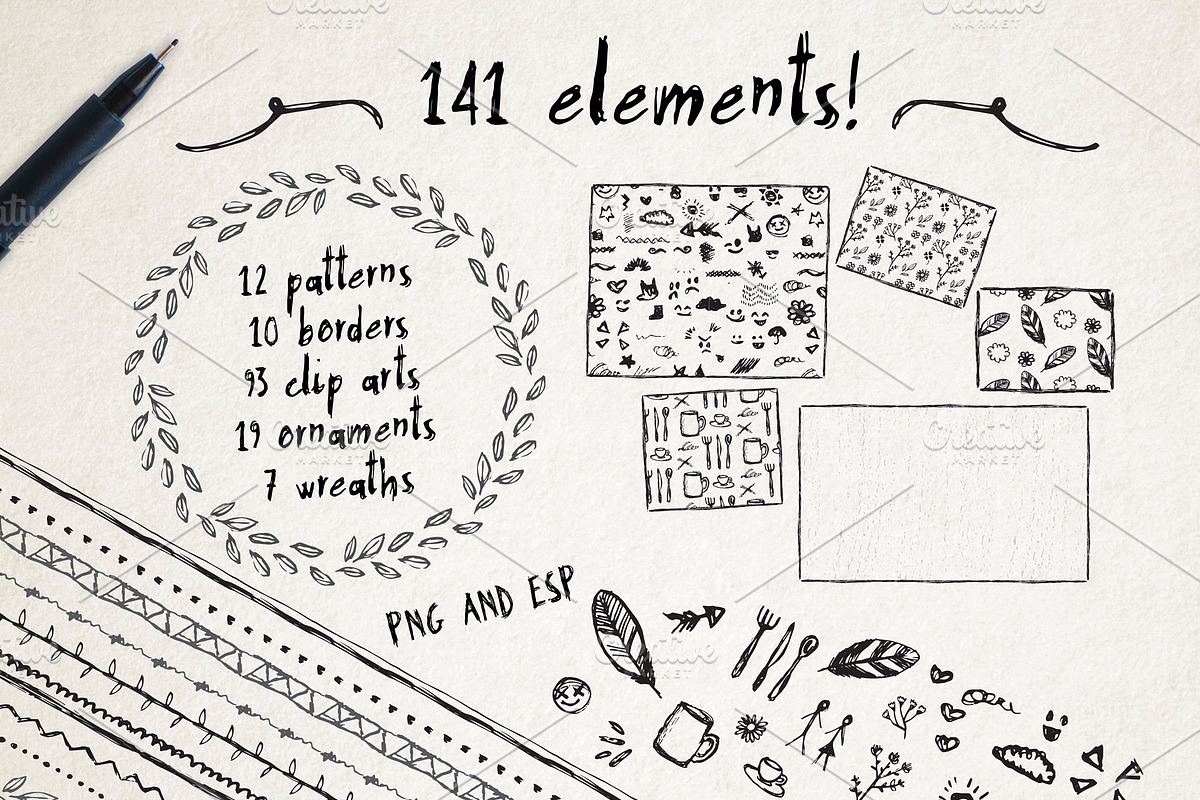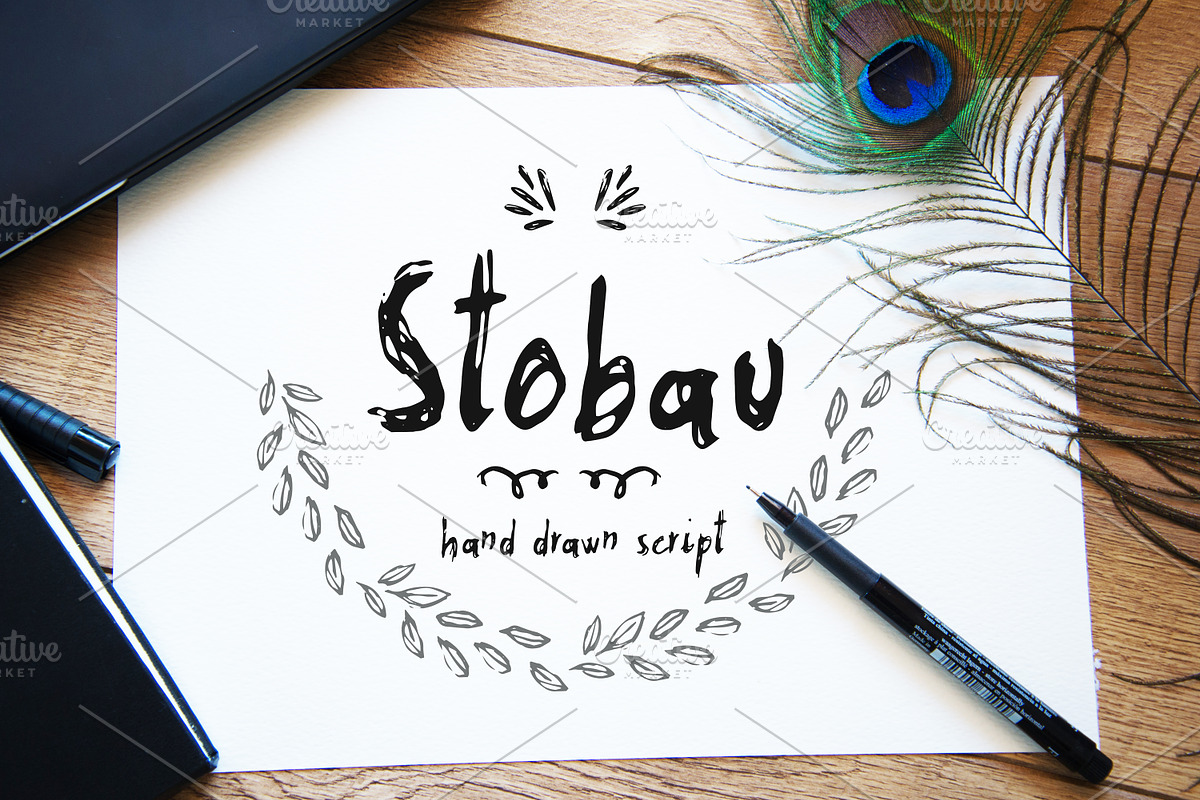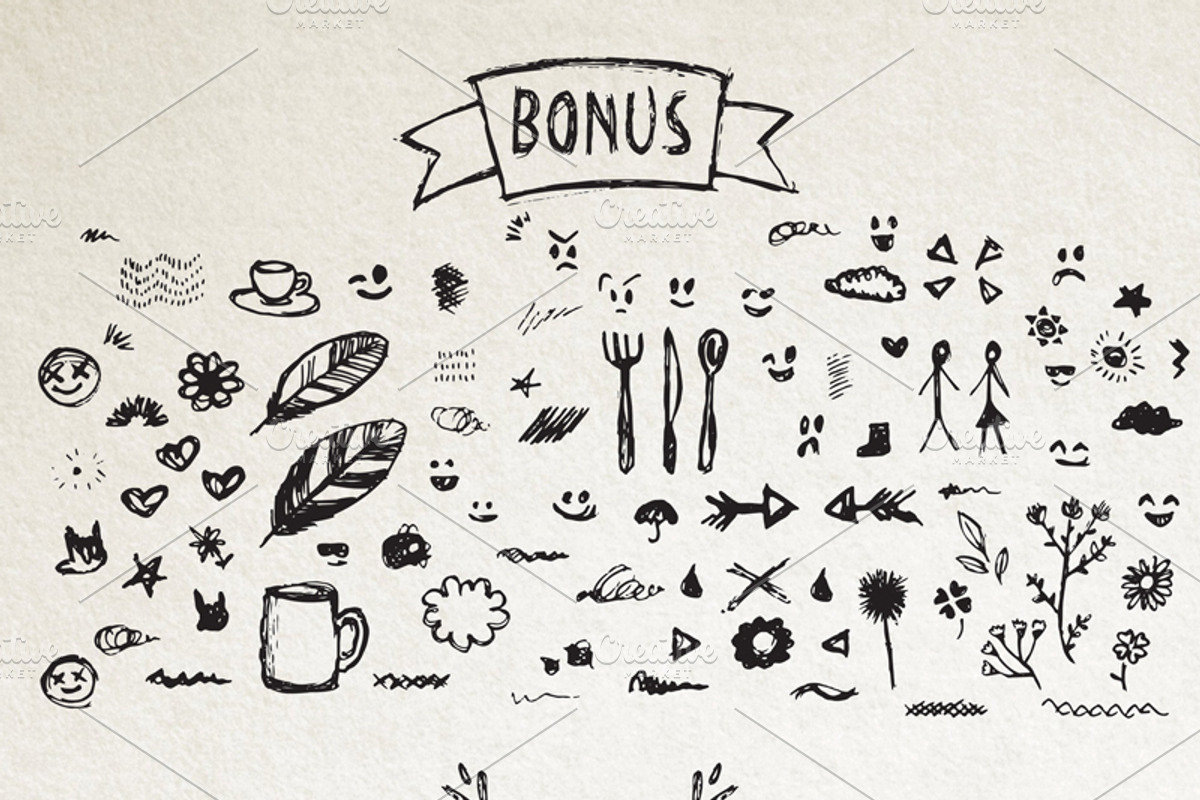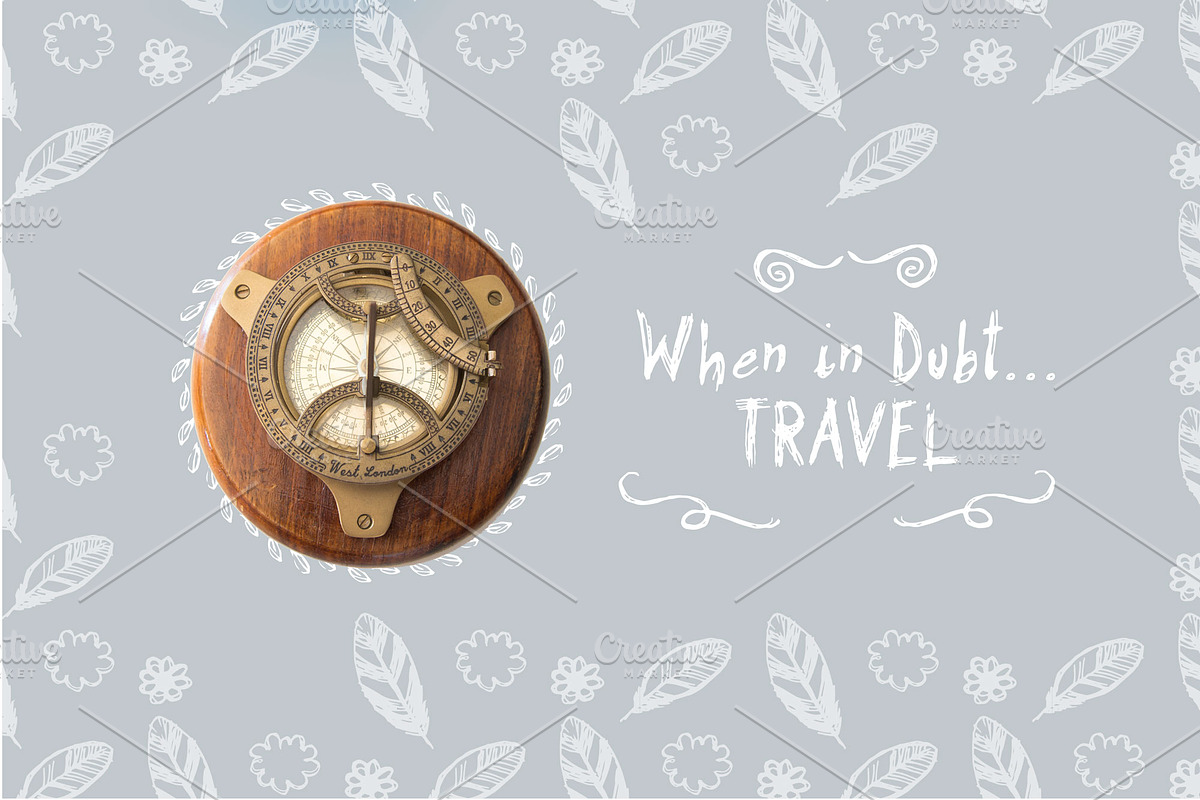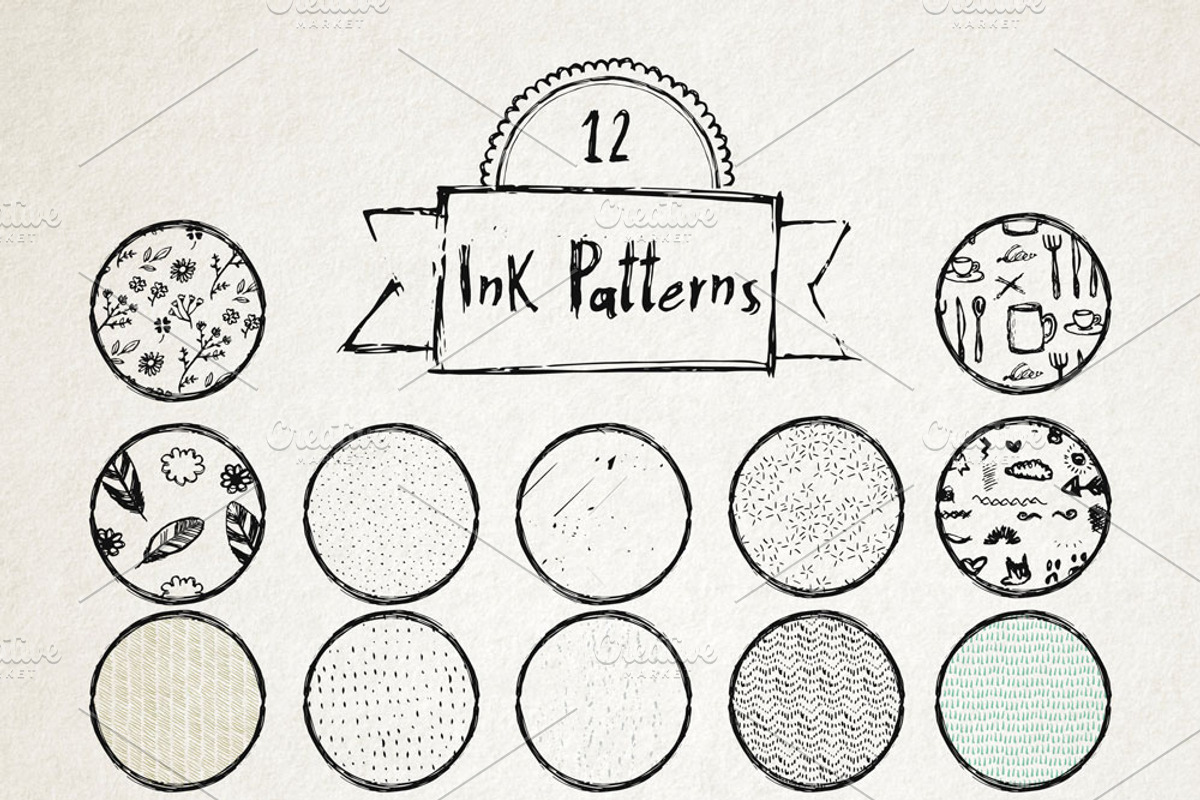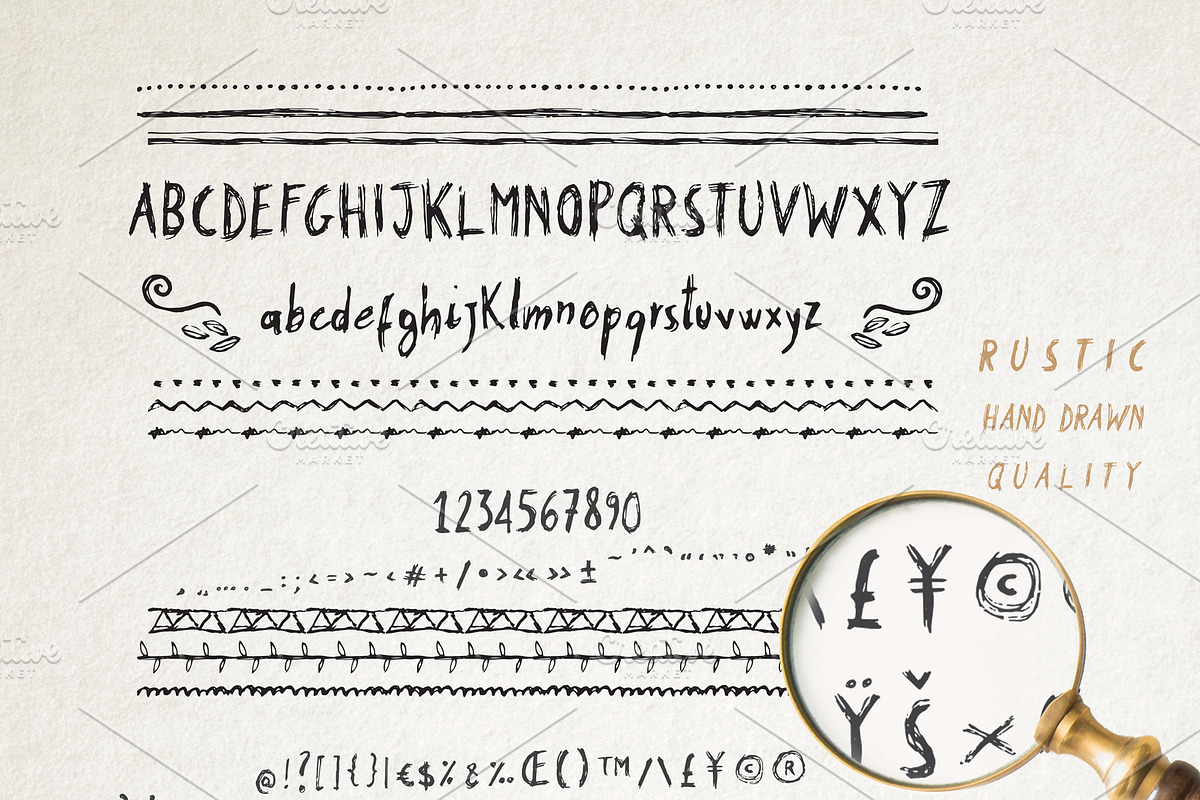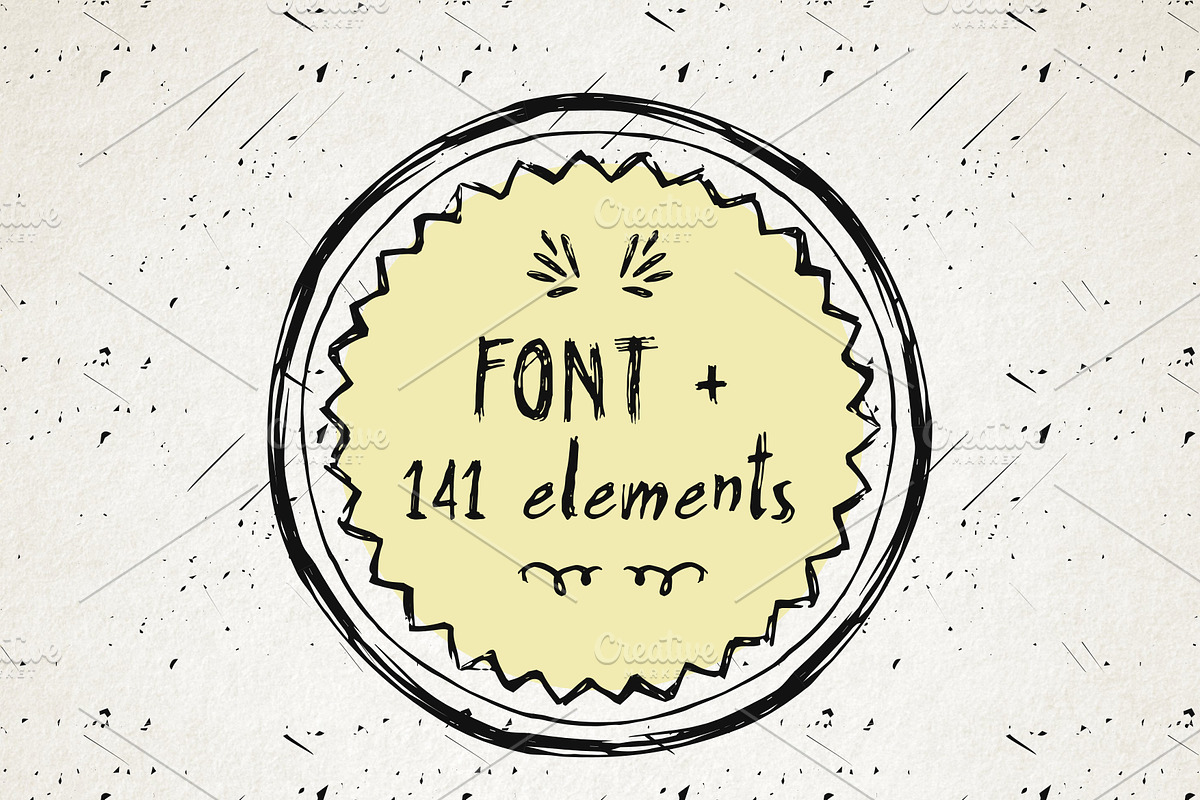
Stobau font + extras, modern font
Stobau font + extras, modern font by PATCHPO is a font selected for branding, posters, packaging, typography.
Why Stobau font + extras, modern font is worth a look
Stobau font + extras, modern font by PATCHPO fits naturally into Branding, posters, packaging, typography.